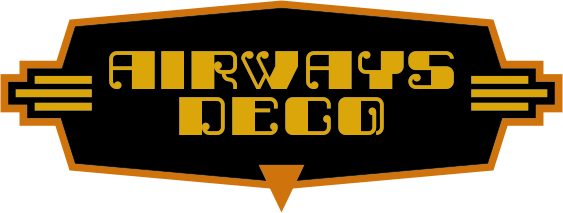
Holy... this looks wonderful, instant fav.
Lovely curls without being yucky, this is one of very few 'western style' fonts that step out of the ordinary. I like it.